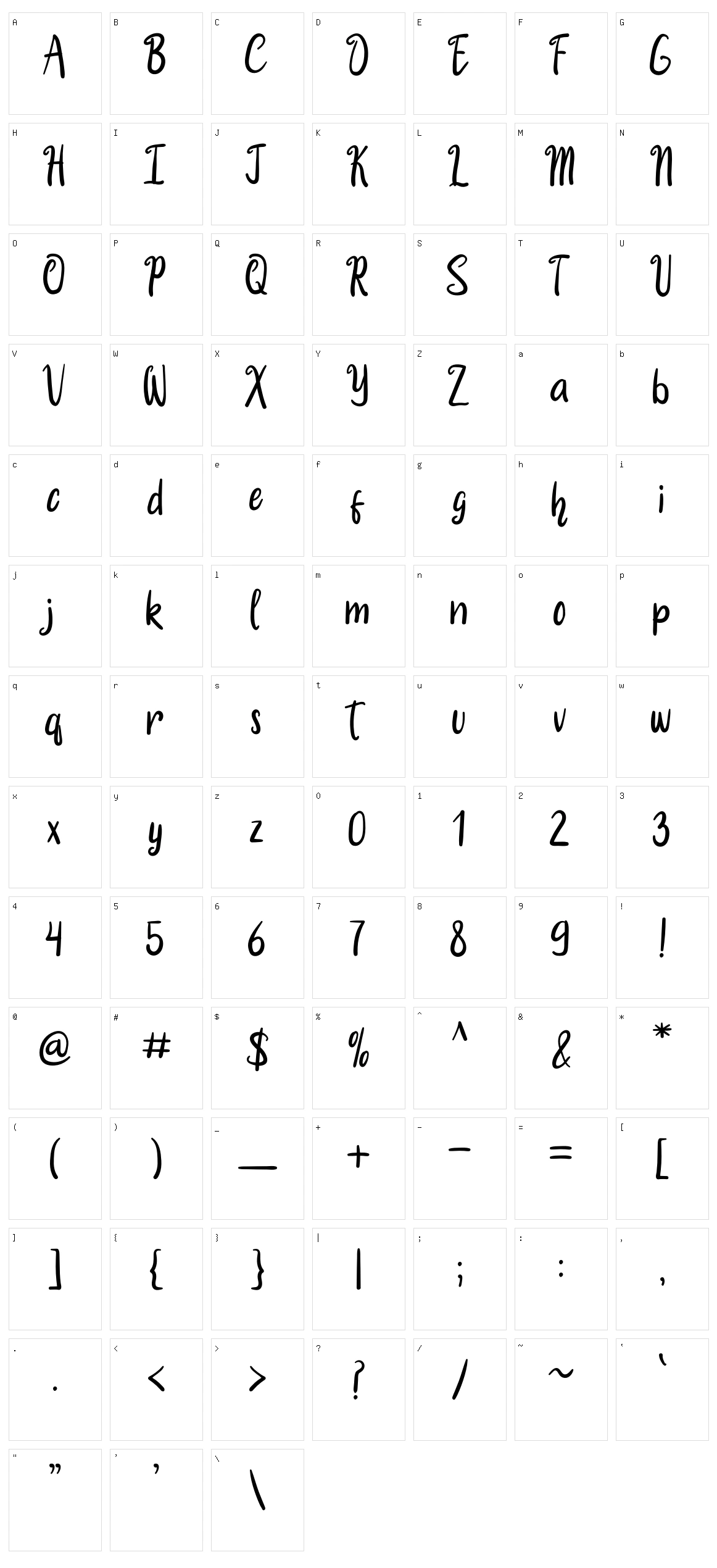
The free font Cabatoyan is carefully designed by Denny Sutanto, showcasing a thoughtful balance of creativity and usability and falls under the Script font style. When you download the ZIP file, it contains only 85.89 KB of font files, making it lightweight and quick to download. Please review the license details below to understand permitted usage and distribution rights. If license information is not available, we recommend using this font for personal projects only or contacting the author directly for commercial usage permissions.